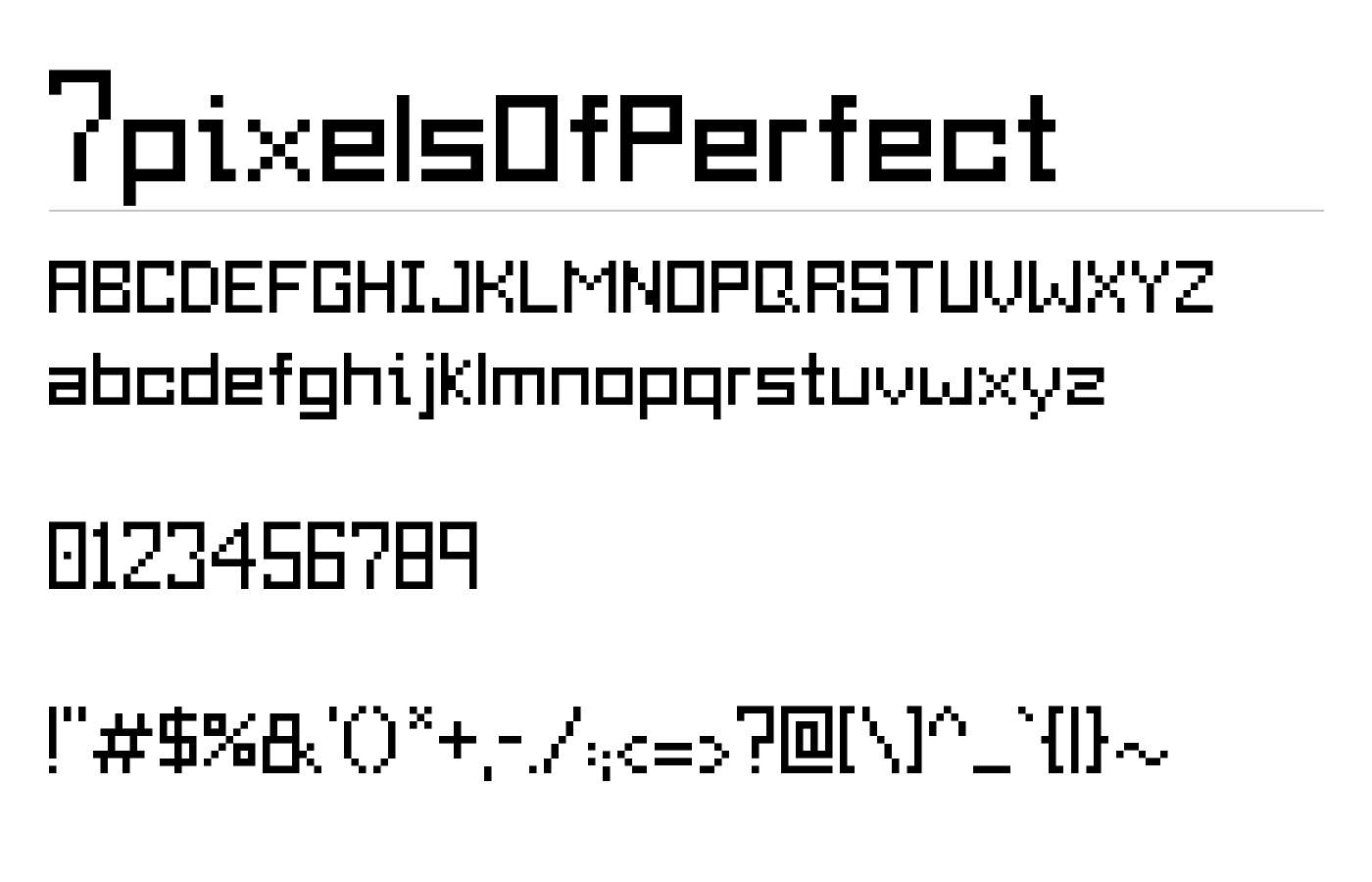
7pixelsOfPerfect is a clean, pixel-style sans serif font that captures a retro digital aesthetic with its blocky, monospaced letterforms and low contrast strokes. Its sharp, geometric shapes and uniform spacing make it ideal for tech-themed designs, video games, and digital interfaces seeking a nostalgic yet modern feel. This font works best in headlines, logos, or UI elements where clarity and a vintage pixel vibe are key.
7pixelsOfPerfect Font
About 7pixelsOfPerfect Font